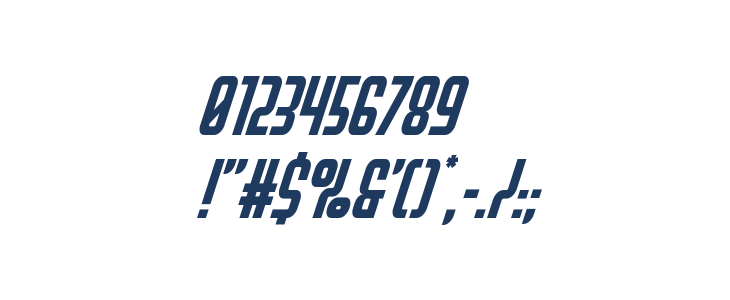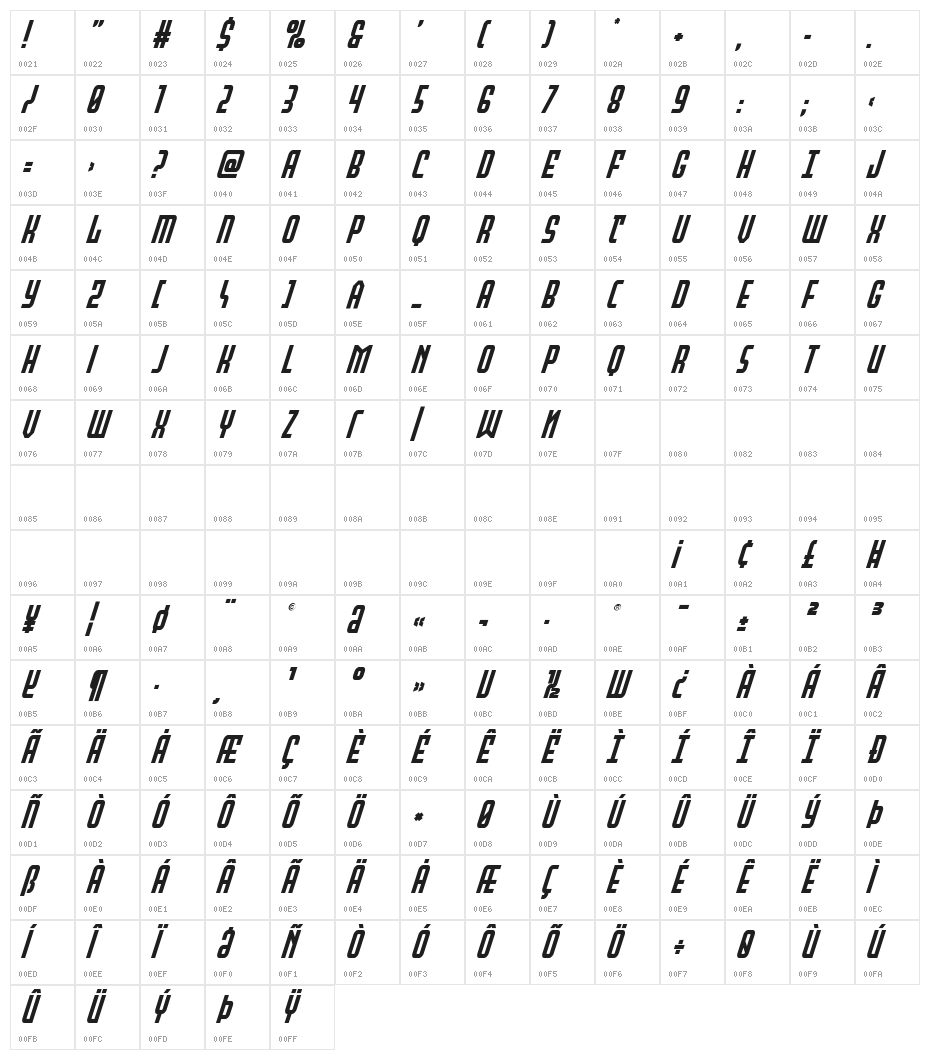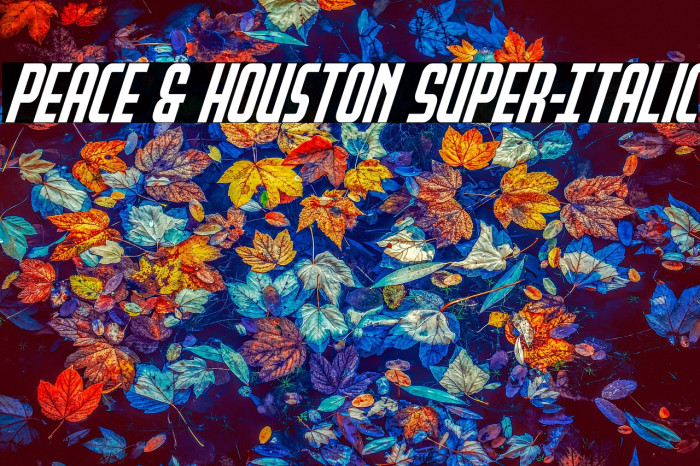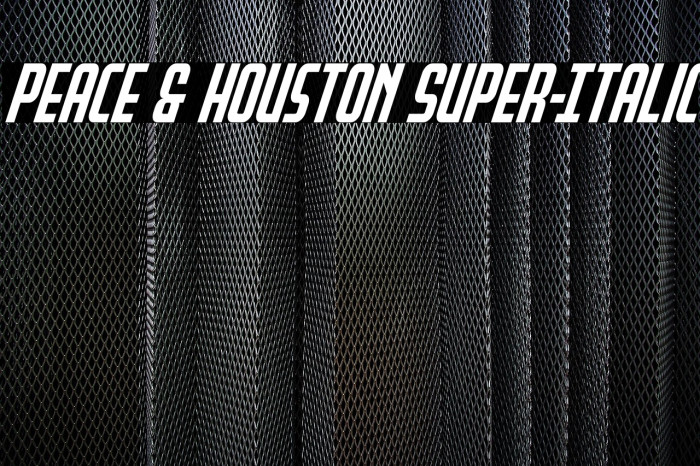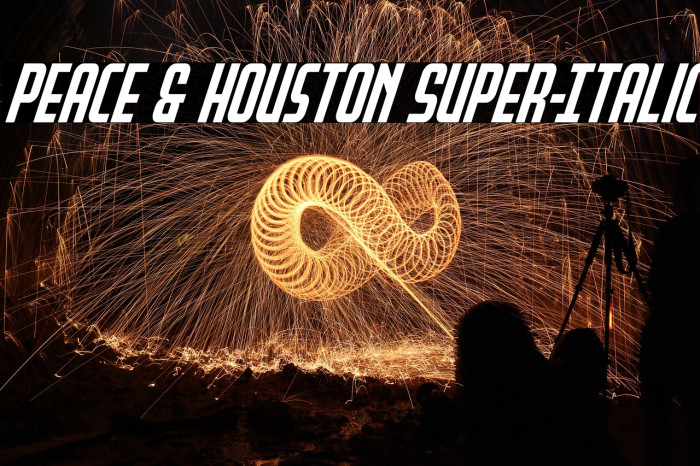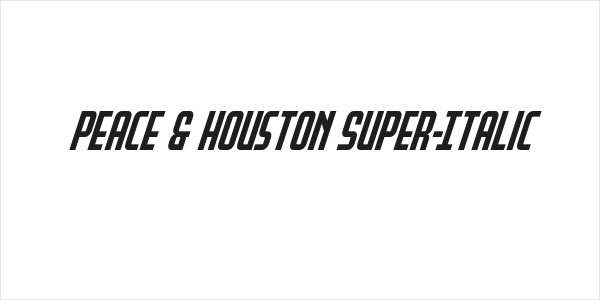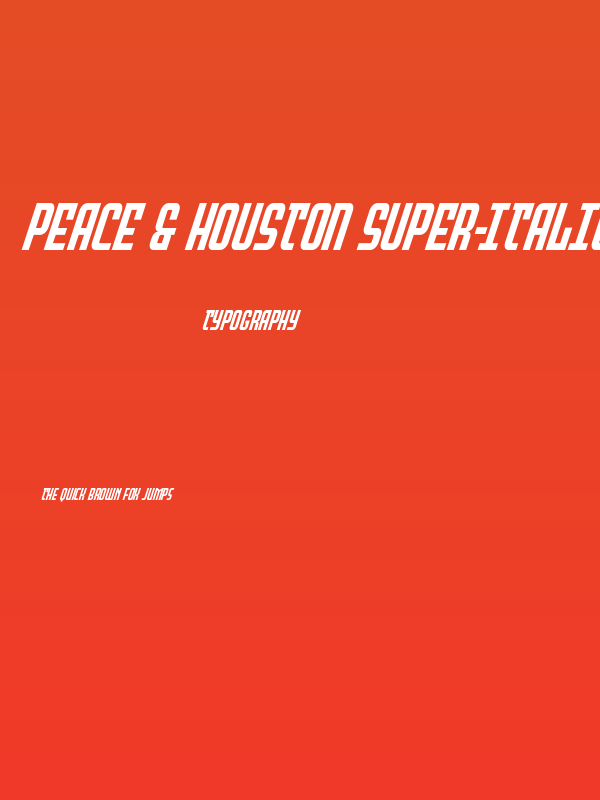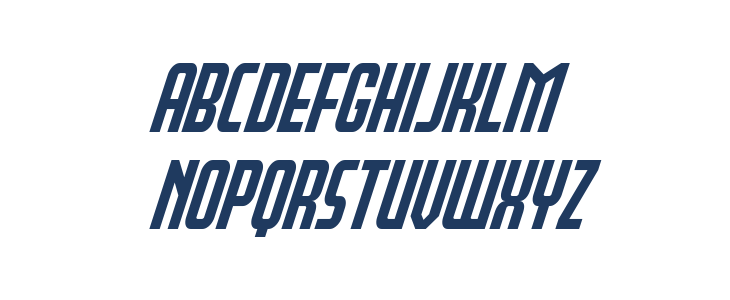
Peace & Houston Super-Italic Font
Peace & Houston Super-Italic Description
This font features a bold, italicized style with a strong, dynamic presence. The characters are elongated and slanted, giving a sense of motion and speed. The strokes are thick and consistent, providing a robust and impactful appearance. The uppercase and lowercase letters maintain a uniform height, contributing to a cohesive look. The numbers and special characters are designed to match the boldness and slant of the letters, ensuring a harmonious overall aesthetic. This font is ideal for making a statement, with its eye-catching and assertive design.
| Proposed Projects | Ideal for sports branding, dynamic posters, and attention-grabbing headlines. |